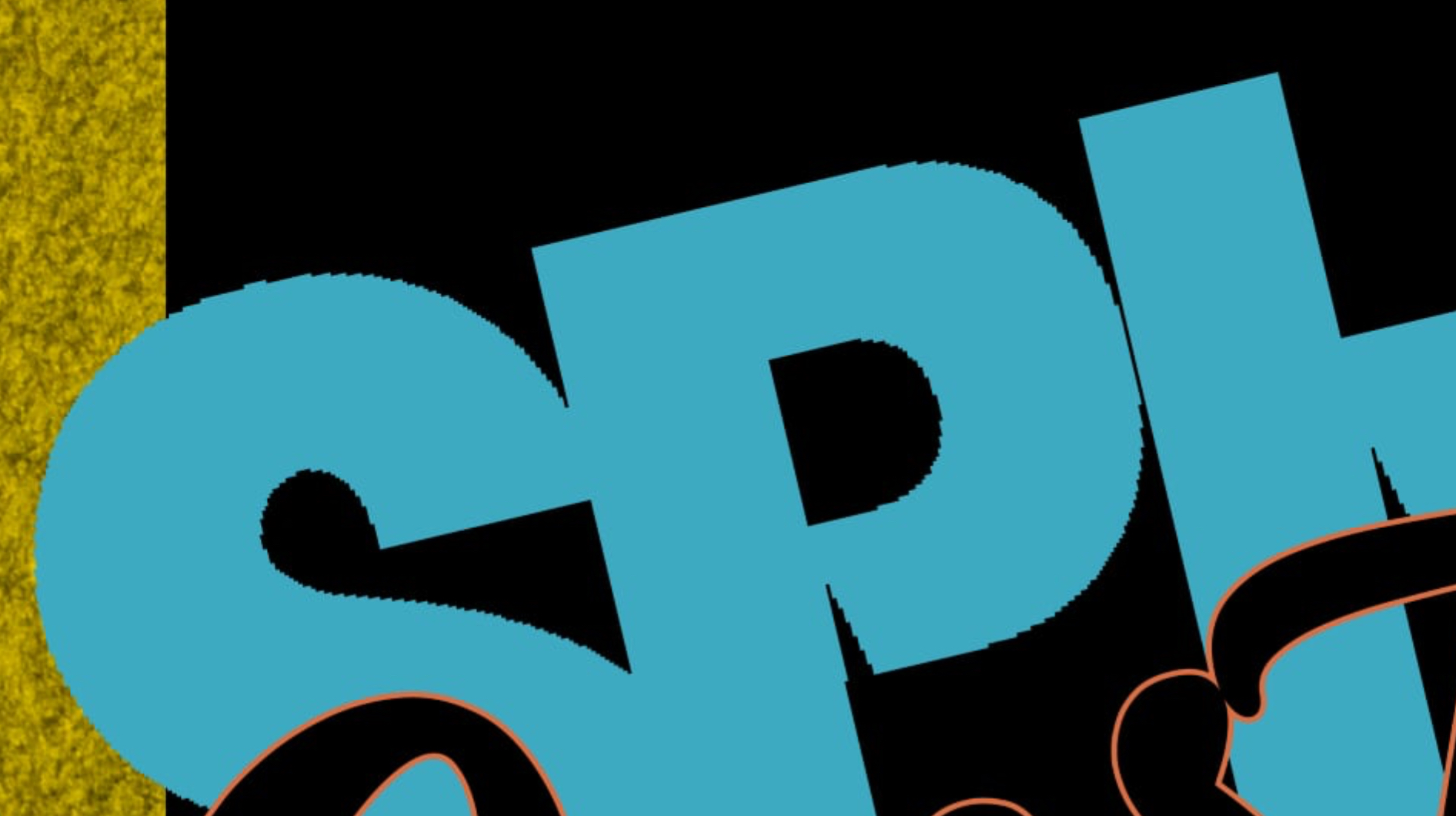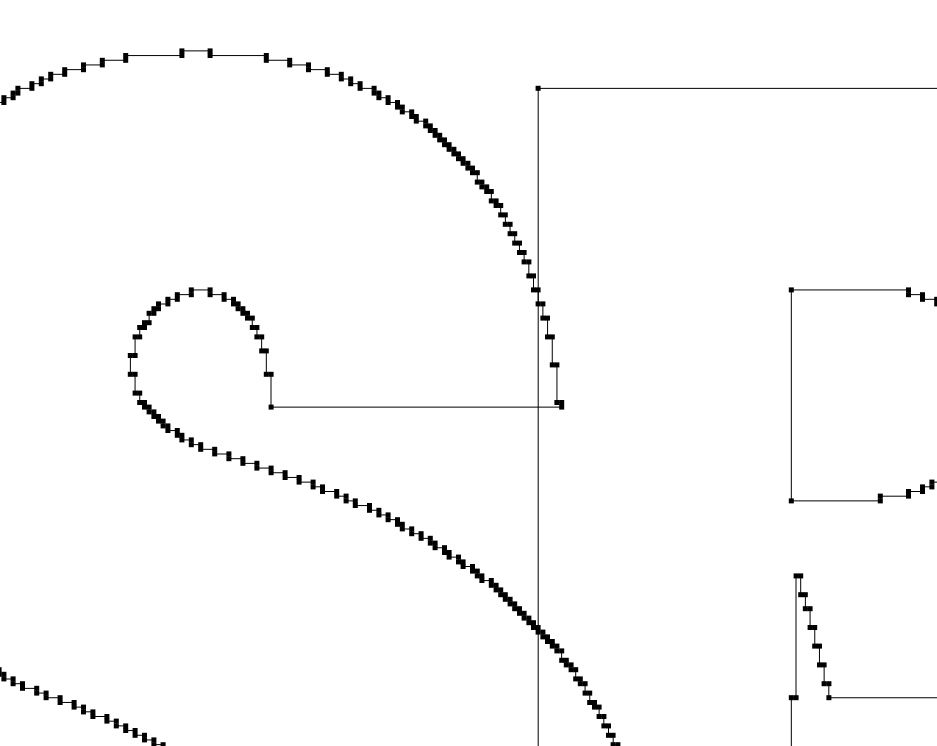
Pixalated Font Edge
This is the first time ive come across this, im pretty sure its the actual font, half pixalated/ half crisp edge?, had a look at alias etc, doesnt do anything different, i really like the font though, is there a solution?, all the other text is fine, cheers
Here's your problem: whoever made the font  was a hack. Here's a work path made from some text (@800%)
And here it is showing the control points:
This font is free, and worth the price.
It is hard to know what you are doing Photoshop's UI is missing.  We have no idea of sizes of elements like text font, document resolution, Size and Zoom level.
What is the font? Is it live, editable text? It looks like either a bitmap font or type with no antialiasing that has been rasterized, then scaled up, and finally rotated.
It might be a bit of work, but (assuming you have just a bitmap version of this font) you could save out just that layer, and then use Illustrator's Trace function to make a vector version that you could scale to any size, with nice edges.
the original is a template psd, but i used the elements & placed them into a larger document, but the font i just installed from dafont. changed the text & size. (smaller)
which is the same font suggested in the original template psd, i changed the text, i think i might have rotated it, or might have been at that angle originally. every other text is fine. anti alias makes no difference if set to anything other than none.
can you provide the structure of the template psd and its size and resolution.
ive only used some the folders/layers and changed the sizes, of the graphics within etc, which look perfect in a new document i created at 300dpi, size 61cm x 91.5cm,
the original template info says “1080×1080”
jordanbanimaton​: JJMack​ now asked you twice for some precise set of information. Guess-working is not quite rewarding. But anyhow, my guess would be anti-alias.
Here's your problem: whoever made the font  was a hack. Here's a work path made from some text (@800%)
And here it is showing the control points:
This font is free, and worth the price.
i knew it would be the font, in the end, im just going to delete it.
This font is free, and worth the price.
There a some high quality fonts out for free.
And if I need a pixelated font, I now know where to find.